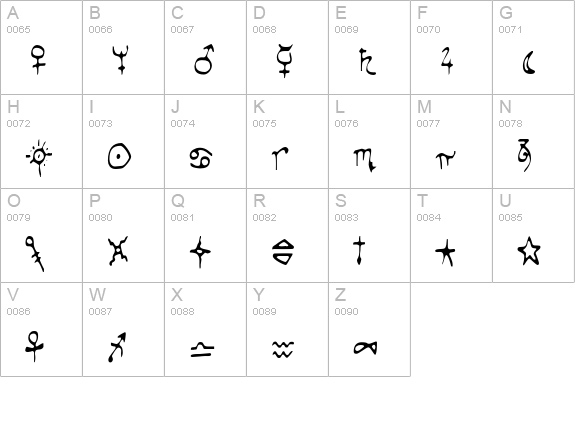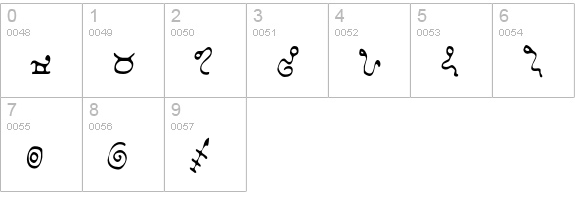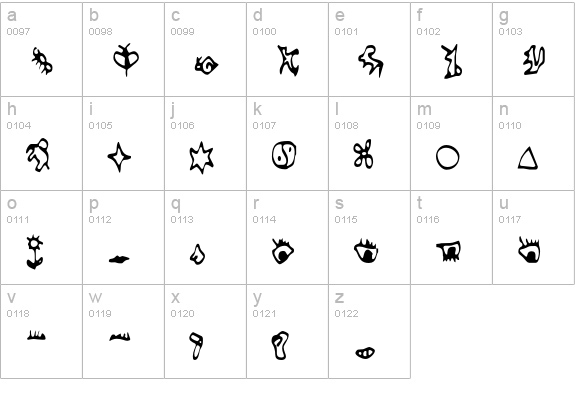
ScorpioDingbats Font Details
ScorpioDingbats font is a captivating and versatile typeface that is sure to add a touch of elegance and creativity to any design project. With its intricate and ornate details, this font is perfect for adding decorative elements, embellishments, or symbols to your designs. ScorpioDingbats font is designed with precision and attention to detail, ensuring that each character is beautifully crafted. From delicate flourishes to bold and striking icons, this font offers a wide range of options for expressing your artistic vision. One of the best features of ScorpioDingbats font is that it is freely available to download at FontsMarket.com. This means that you can easily access and use this font in your personal and commercial projects without any hassle. Whether you're a graphic designer looking to enhance your artwork or a creative individual searching for unique symbols and icons, ScorpioDingbats font is the perfect choice. With its extensive character set, ScorpioDingbats font offers endless possibilities for customization. From traditional and classic designs to modern and contemporary styles, this font can adapt to any design concept. Its versatility makes it suitable for a wide range of projects, including branding, packaging, invitations, posters, and more. Don't miss out on the opportunity to elevate your designs with ScorpioDingbats font. Download it for free today at FontsMarket.com and unlock a world of creativity and imagination. Let ScorpioDingbats font be your go-to choice for adding that extra flair and sophistication to your designs.